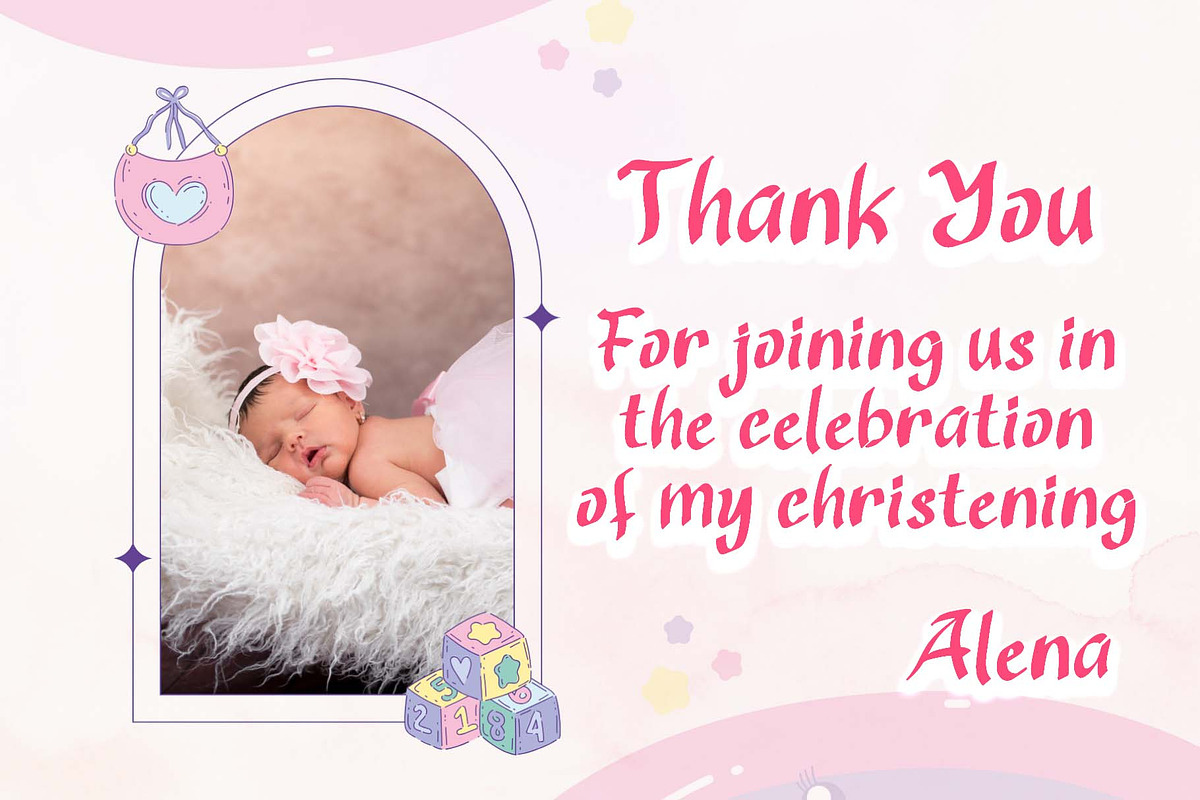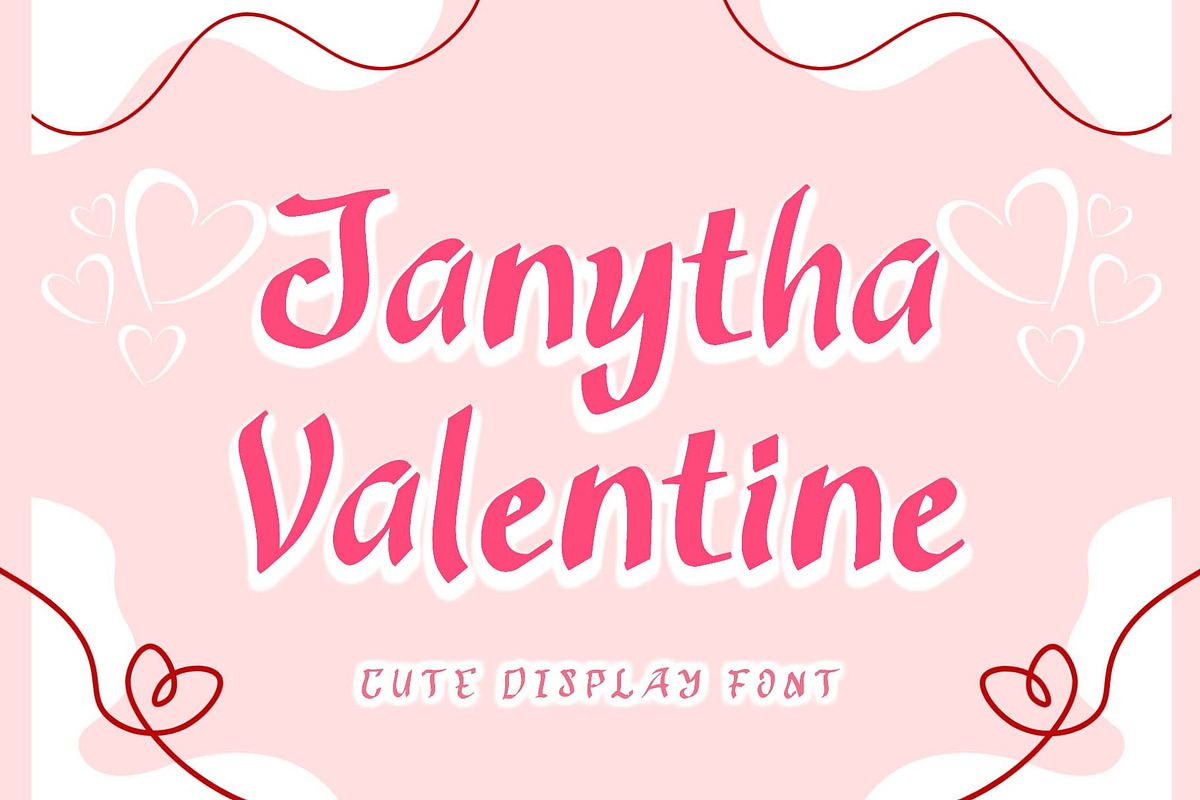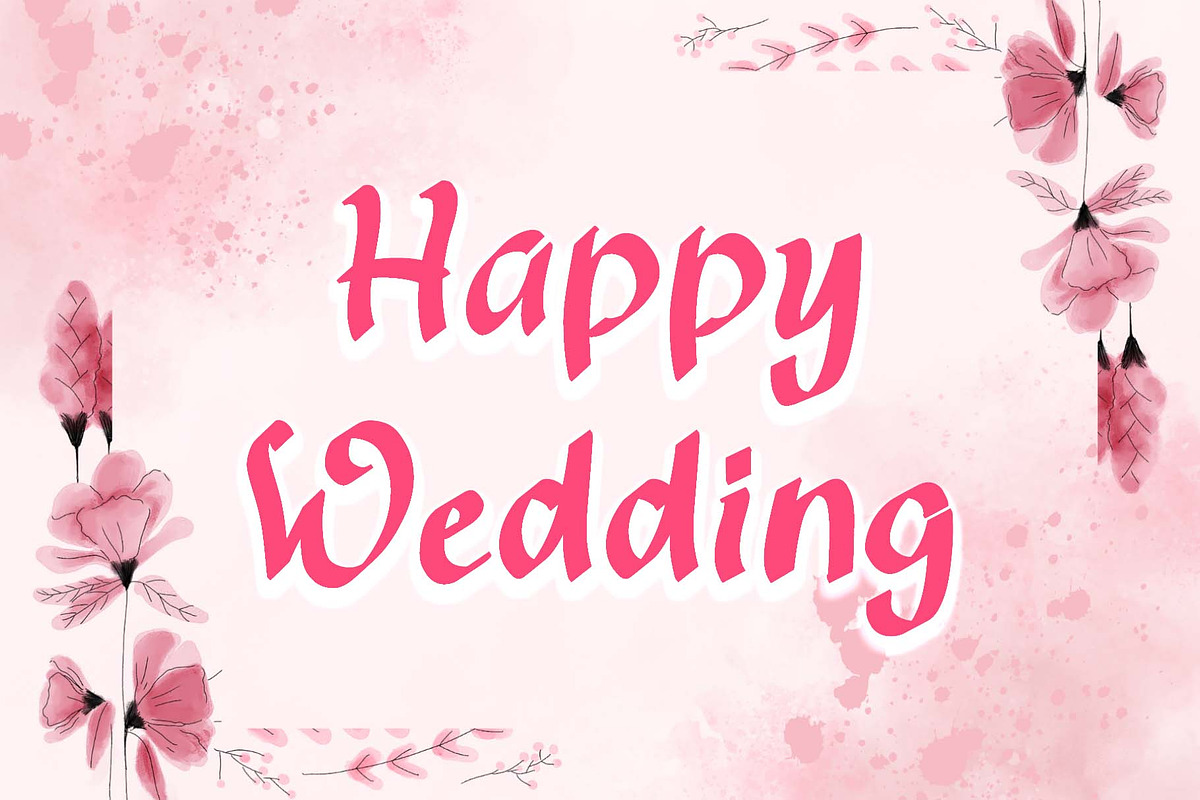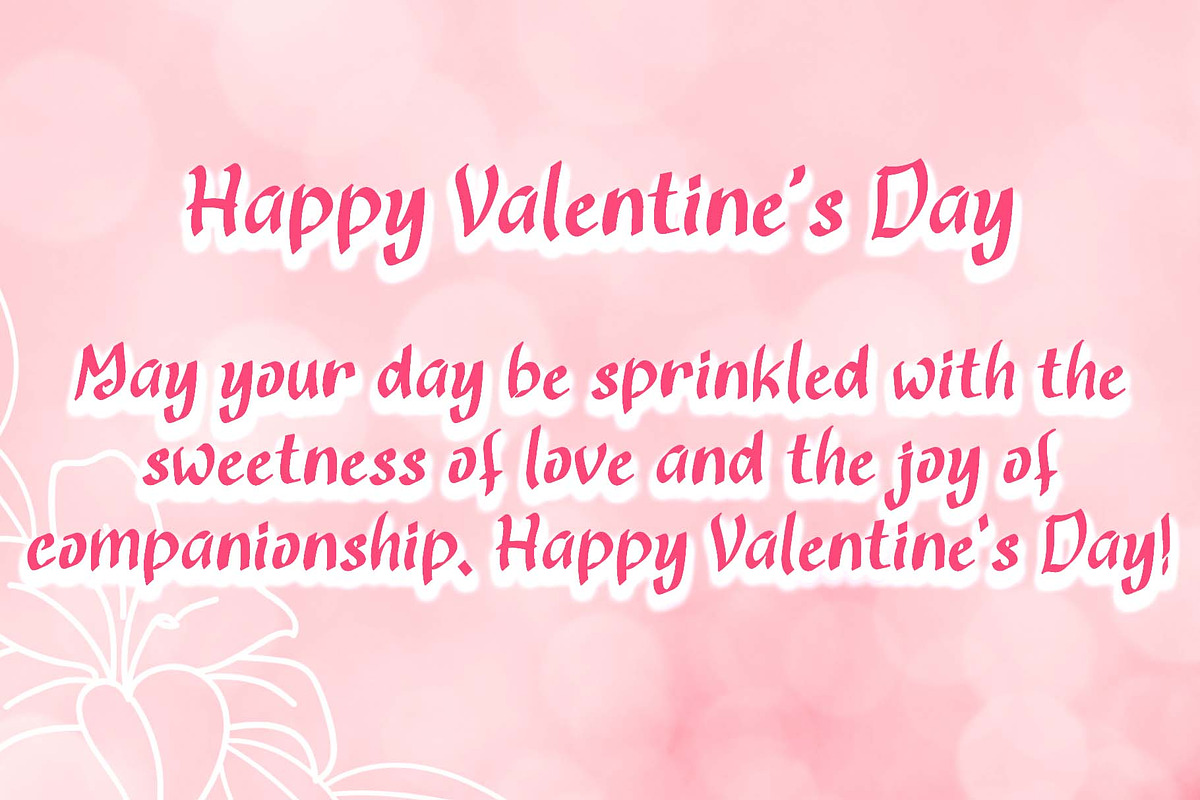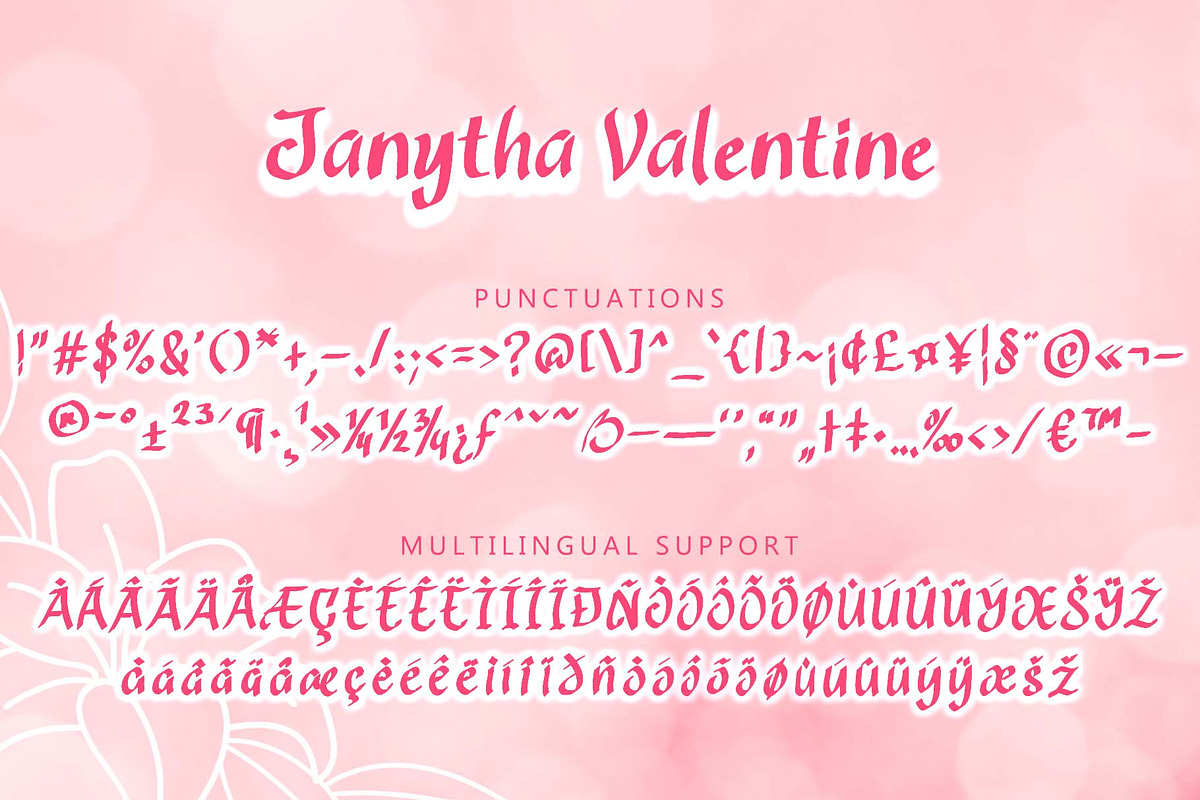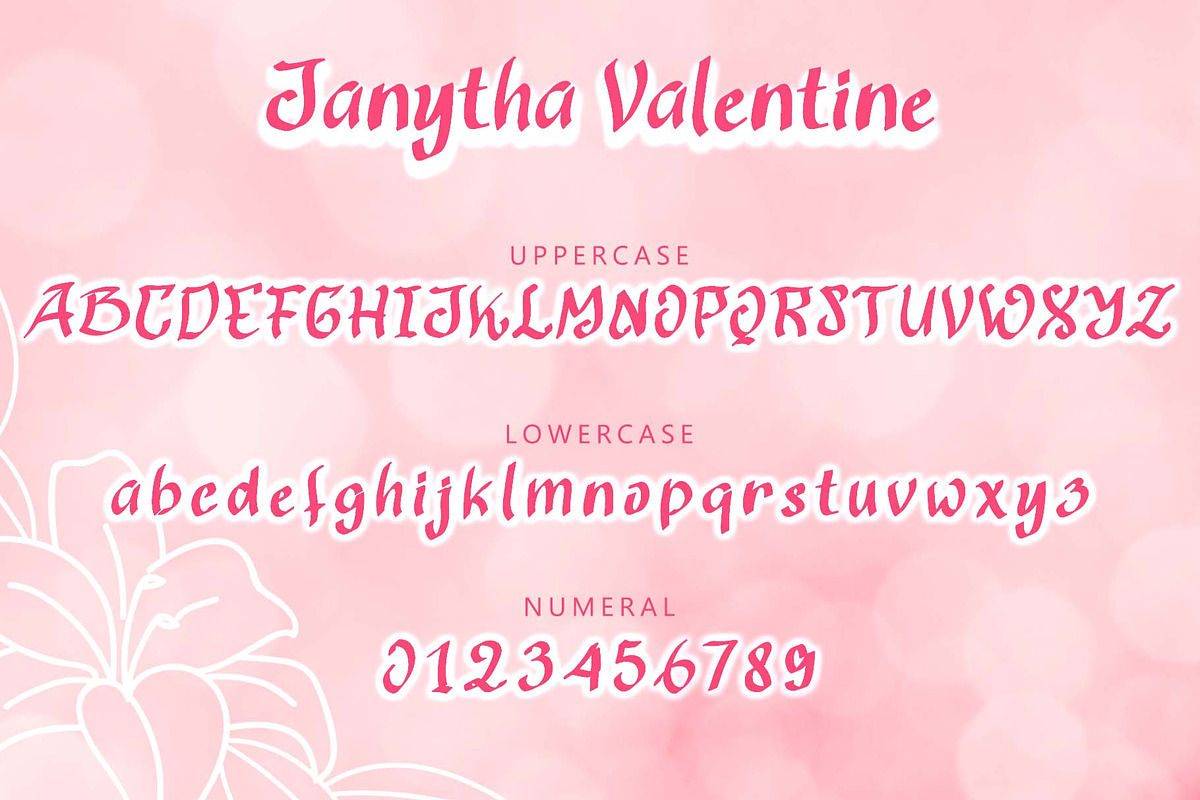
Janytha Valentine
"Janytha Valentine" is a unique and sweet display font. It comes with uppercase, lowercase, numbers, punctuation, and multilingual support. It is perfect for use on Valentine's Day, Christmas, wedding, birthday, winter, invitations, stickers, posters, print branding, and more.